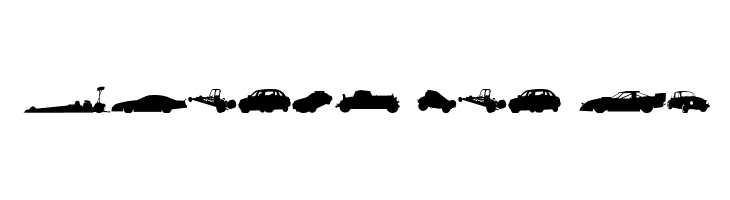
• Need for Speed
A display font using vehicle silhouettes as characters.
• Screaming Guitar
• klozzbats
• Law & Order
Iconic font with legal and governmental symbols.
• Charms BV
A decorative symbol font featuring stars, hearts, and arrows with a playful style.
• PizzaDude Bullets
A playful set of bold, circular symbols including stars, arrows, and smiley faces.
• Complete Plain
• Complete Italic
• King Anakin 2
A bold, geometric font with sharp angles and a modern aesthetic.
• Stoopid
A playful, bold font with interconnected, rounded characters and high contrast.